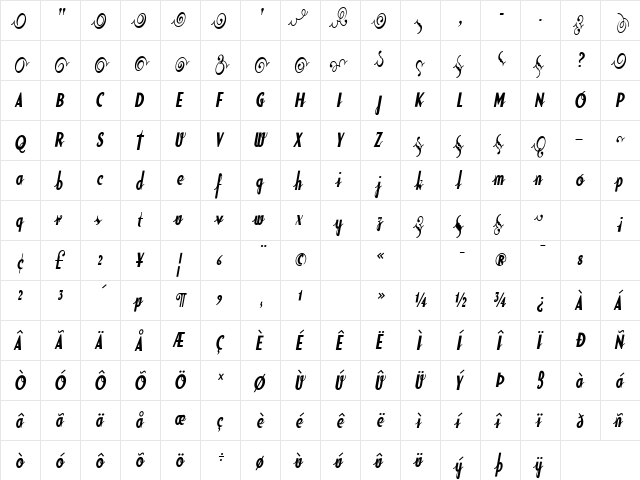
SodaScriptExtras Bold
Design Context for SodaScriptExtras Typeface
SodaScriptExtras brings a calligraphic fluidity to the page — its connecting strokes and expressive curves give it an unmistakably human quality. Its bold stroke weight gives it real presence on the page.
Font Pairing: Combine SodaScriptExtras with a simple geometric sans for maximum contrast — the tension between flowing curves and clean structure is a classic typographic pairing.
Pro Tip: Pair SodaScriptExtras with a clean sans-serif for supporting text. The contrast between fluid script and geometric structure creates an elegant typographic hierarchy.